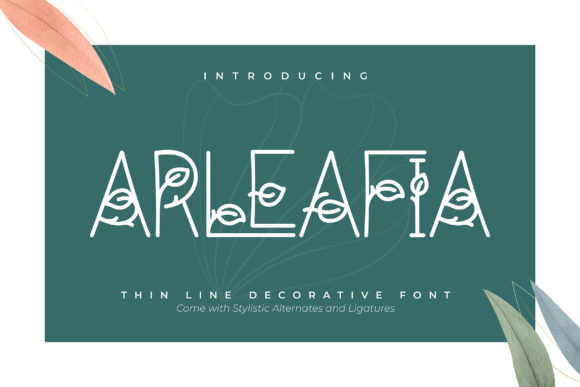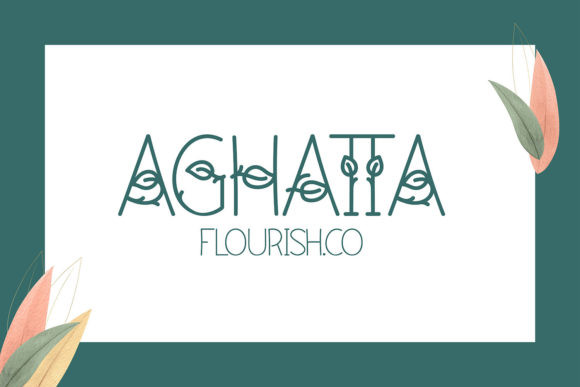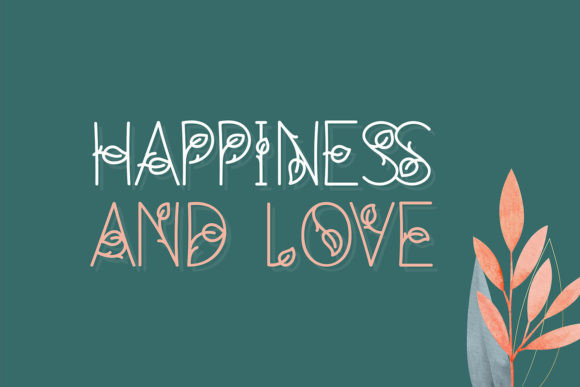
Arleafia Font
Arleafia is a thin and delicate decorative font, featuring leaves as ornaments. It can easily be matched to an incredibly large set of projects, so add it to your creative ideas and notice how it makes them stand out!